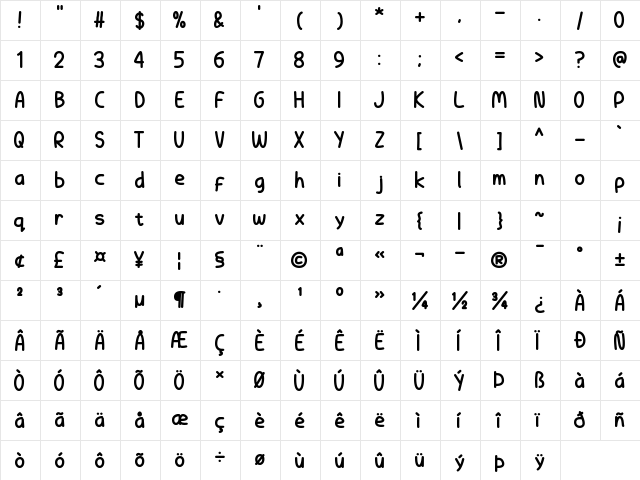
Super Renewables Regular
Design Context for Super Renewables Typeface
Super Renewables is a composed and adaptable typeface that performs quietly and consistently across a wide range of design contexts.
Pro Tip: Pair Super Renewables with a font of contrasting weight or personality to build a more expressive typographic hierarchy.